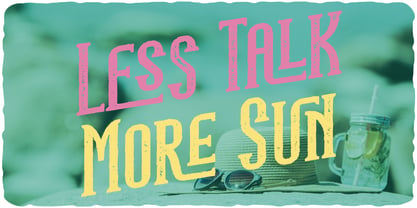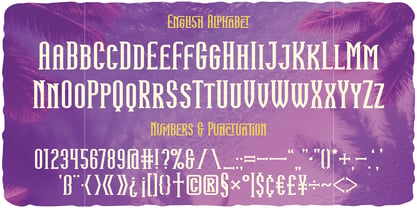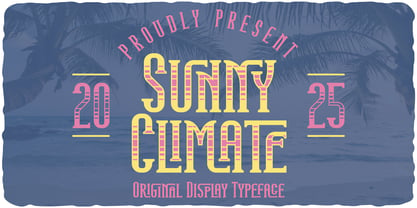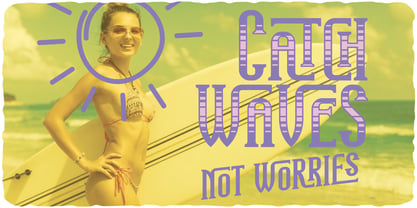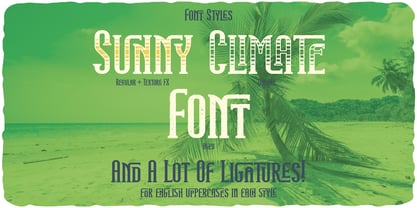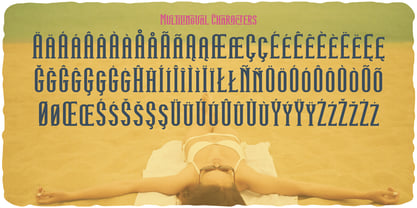
Sunny Climate
by Vozzy
Introducing "Sunny Climate," a distinctive font designed specifically for headlines and accent inscriptions, perfect for capturing attention! This font features a wide array of additional characters, punctuation marks, and multilingual options, along with an extensive selection of standard ligatures (ensure your software supports this OpenType feature). "Sunny Climate" will enhance your beautiful designs, making them stand out with its unique style and versatility, ideal for branding, web design, and editorial projects.
Designers: Oleg Voznyy
Foundry: Vozzy